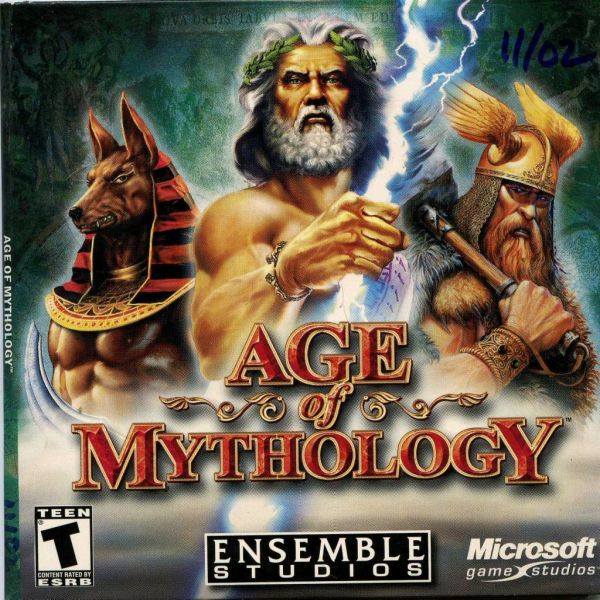
Age of Mythology Font
Fonts in UseAge of Mythology is a real-time strategy video game set in a mythological world where players build civilizations and control gods and creatures. It was developed by Ensemble Studios and published by Microsoft Game Studios in 2002.
The font chosen for the game title on the box art appears to be Baskerville Bold, a transitional serif typeface created by John Baskerville in 1757. Additional information about this typeface is available here.